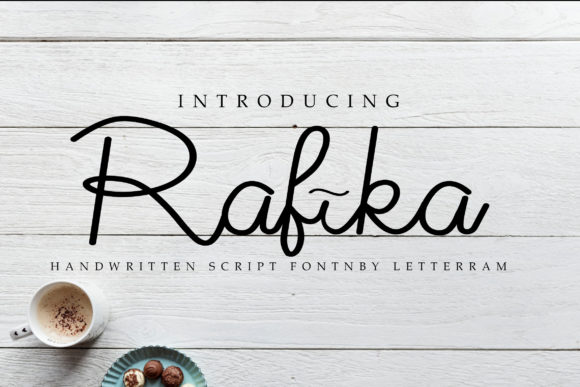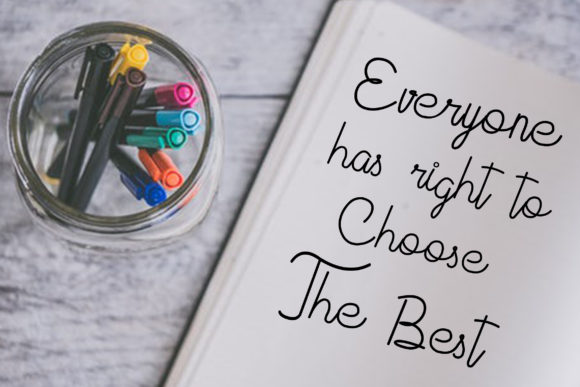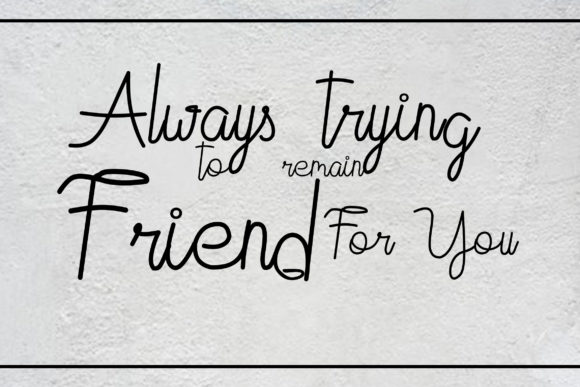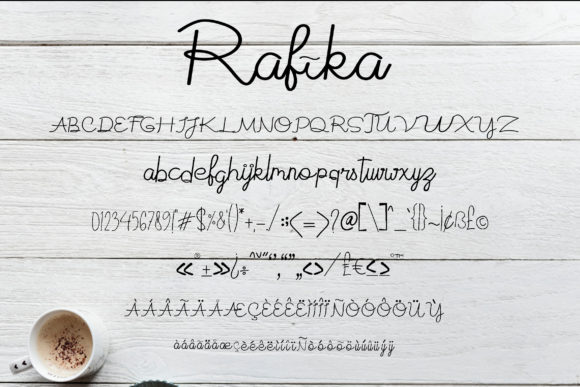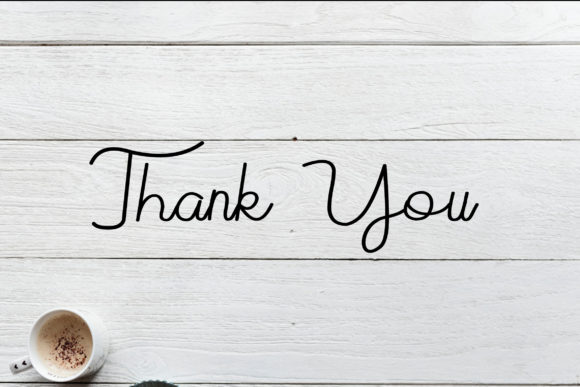
Rafika Font
About Rafika Font
The Rafika is a modern script font with a beautiful fresh style. It can be used for logos, invitations, magazines, photos, quotes, posters, wedding, business cards, branding, and much more!